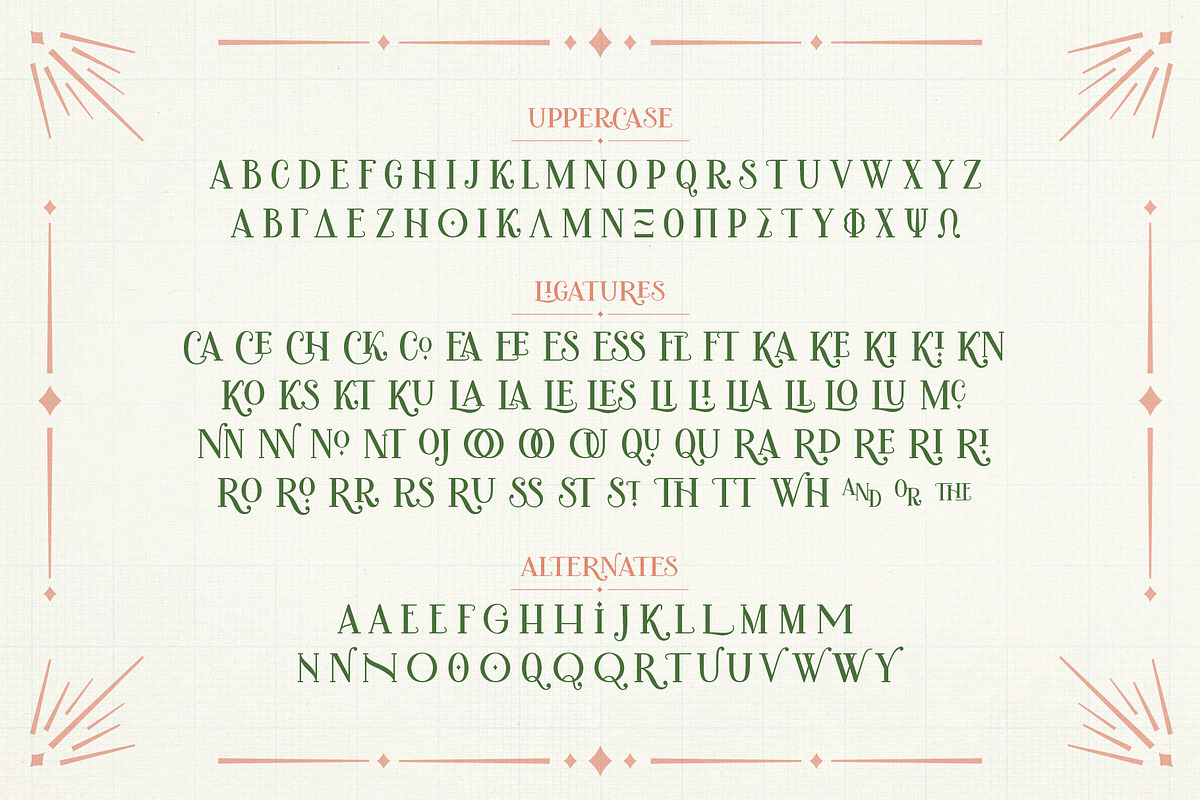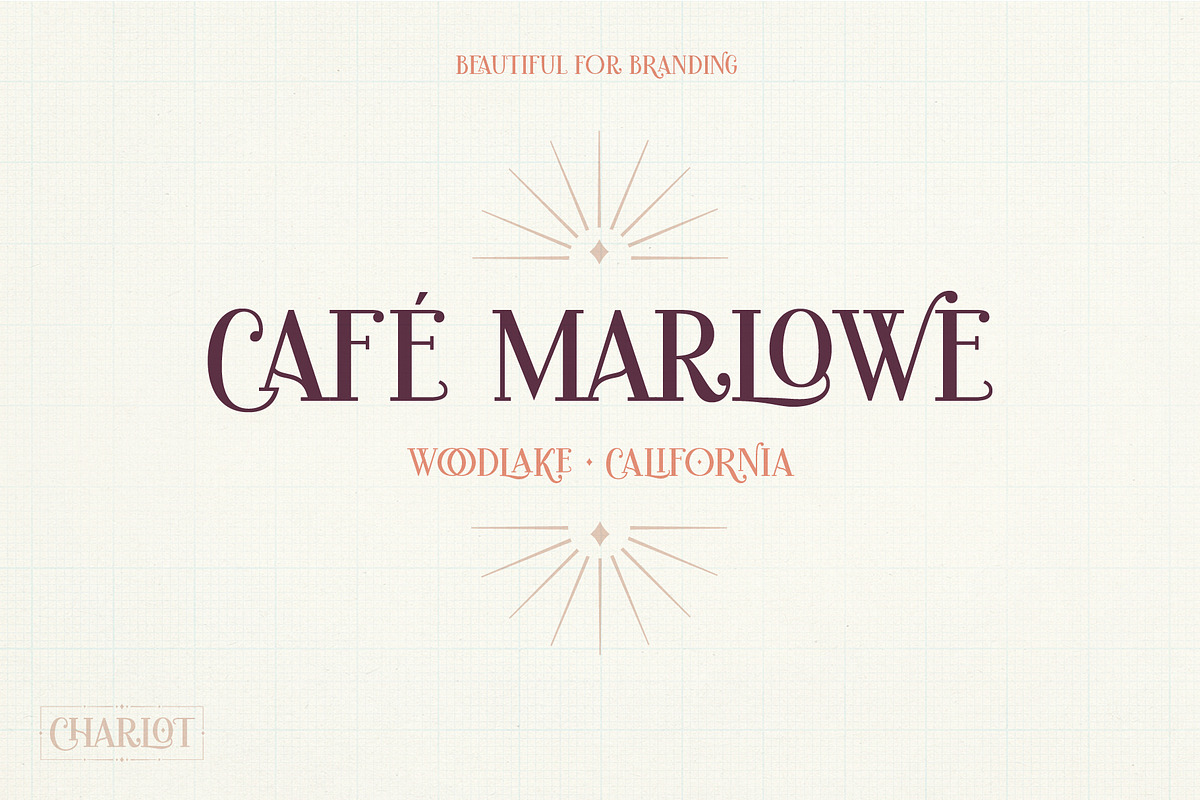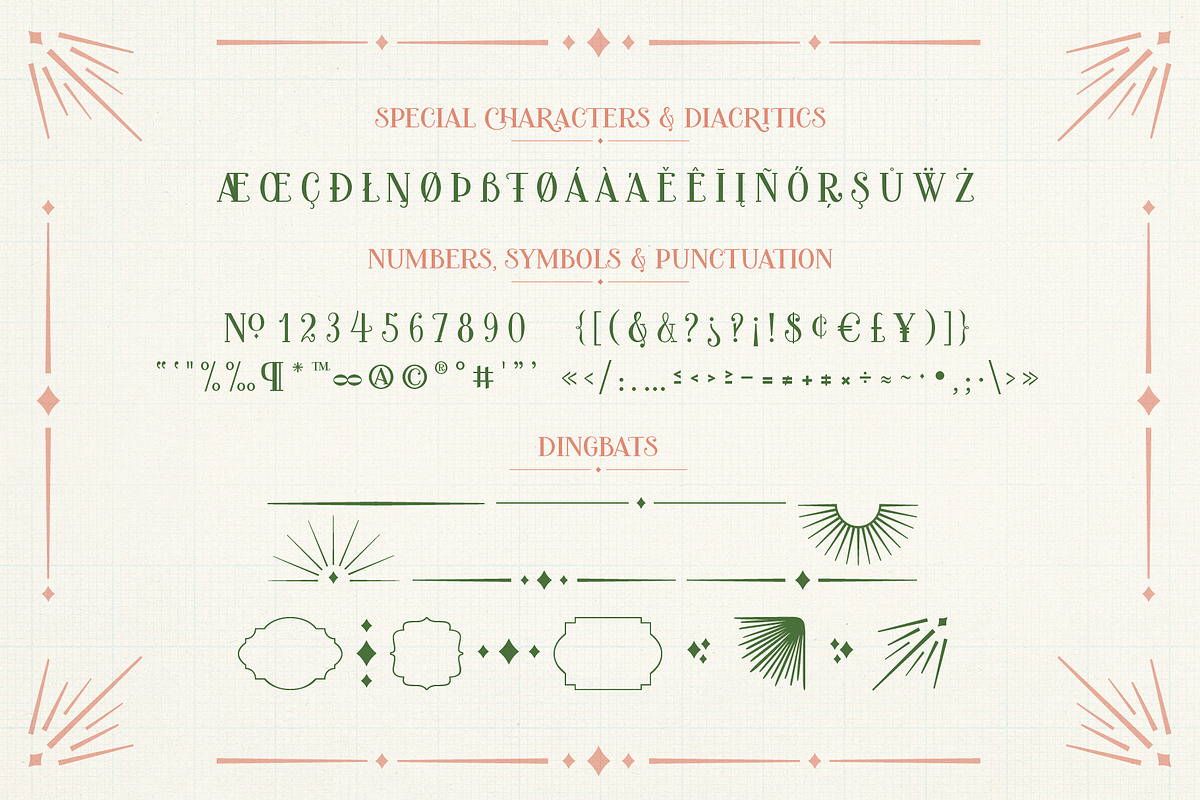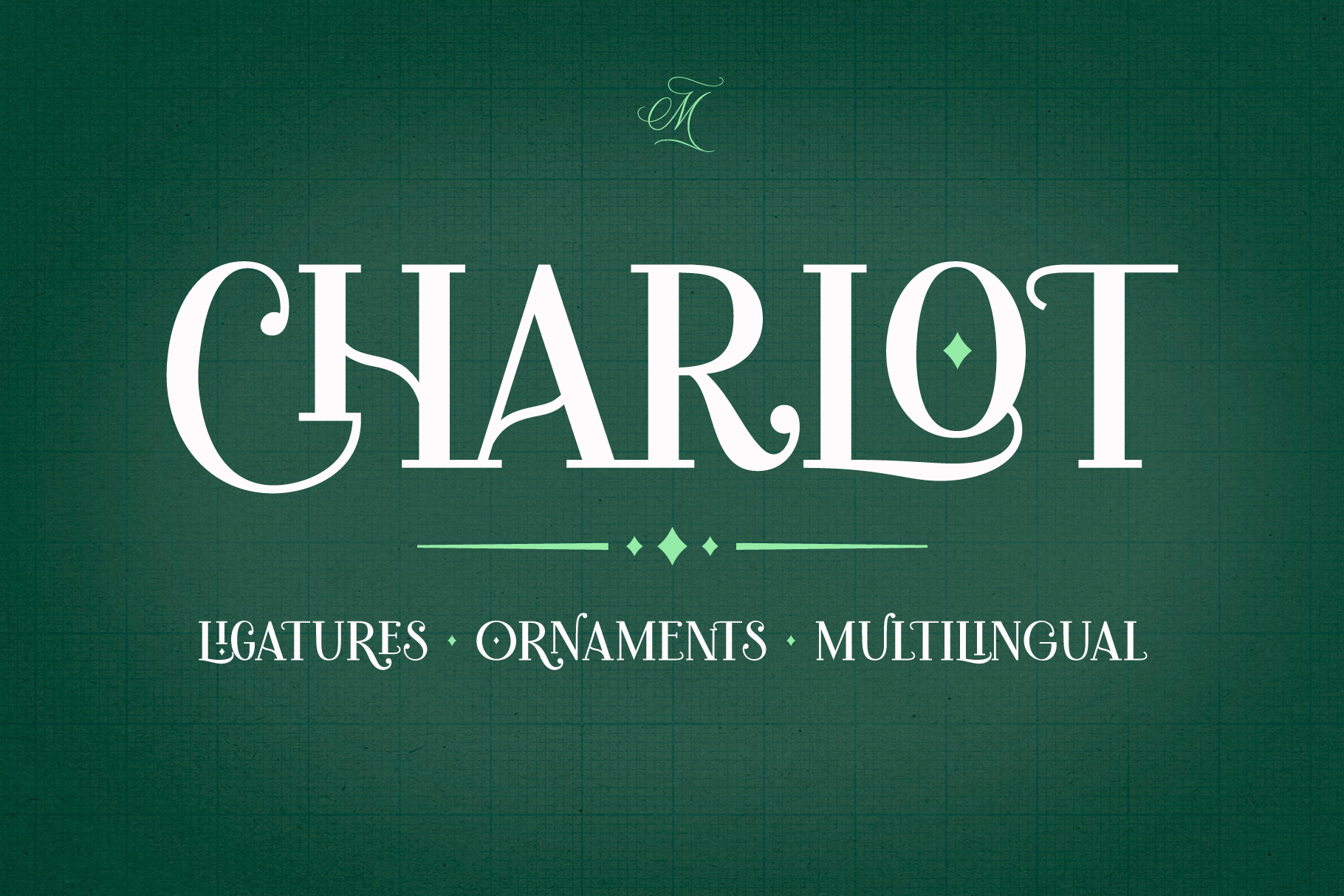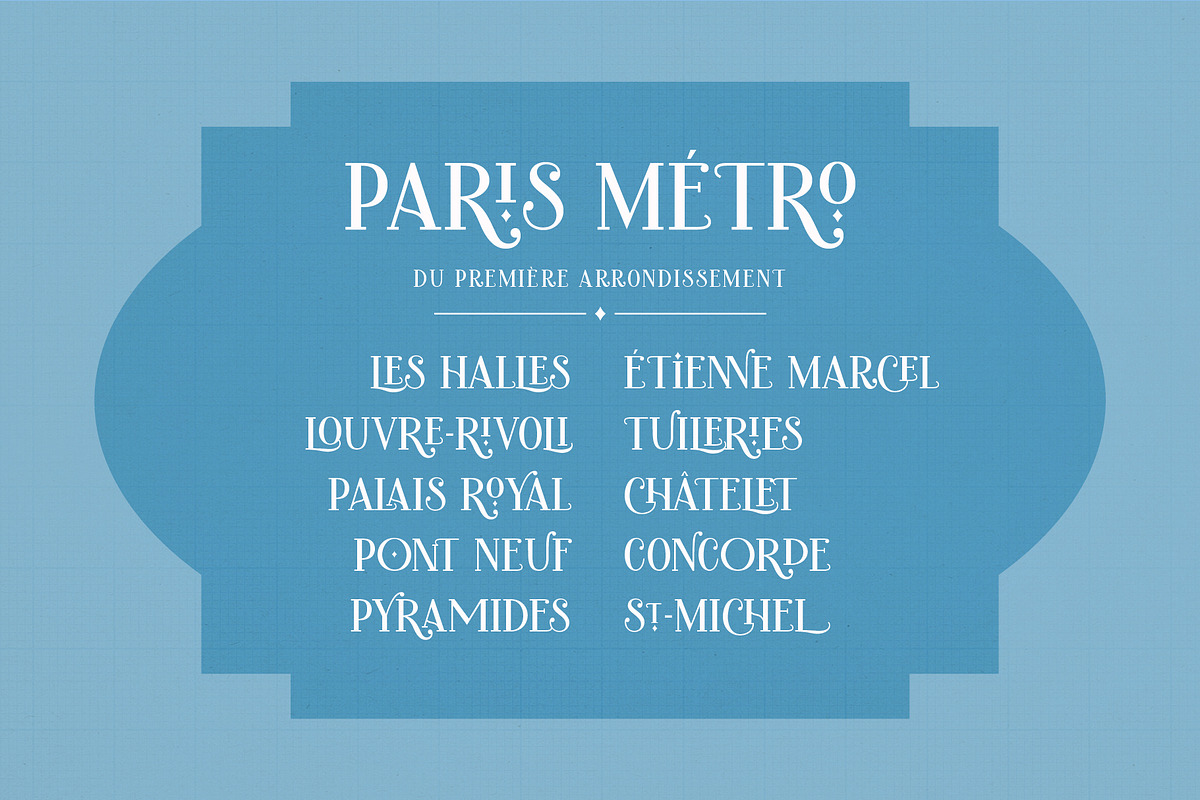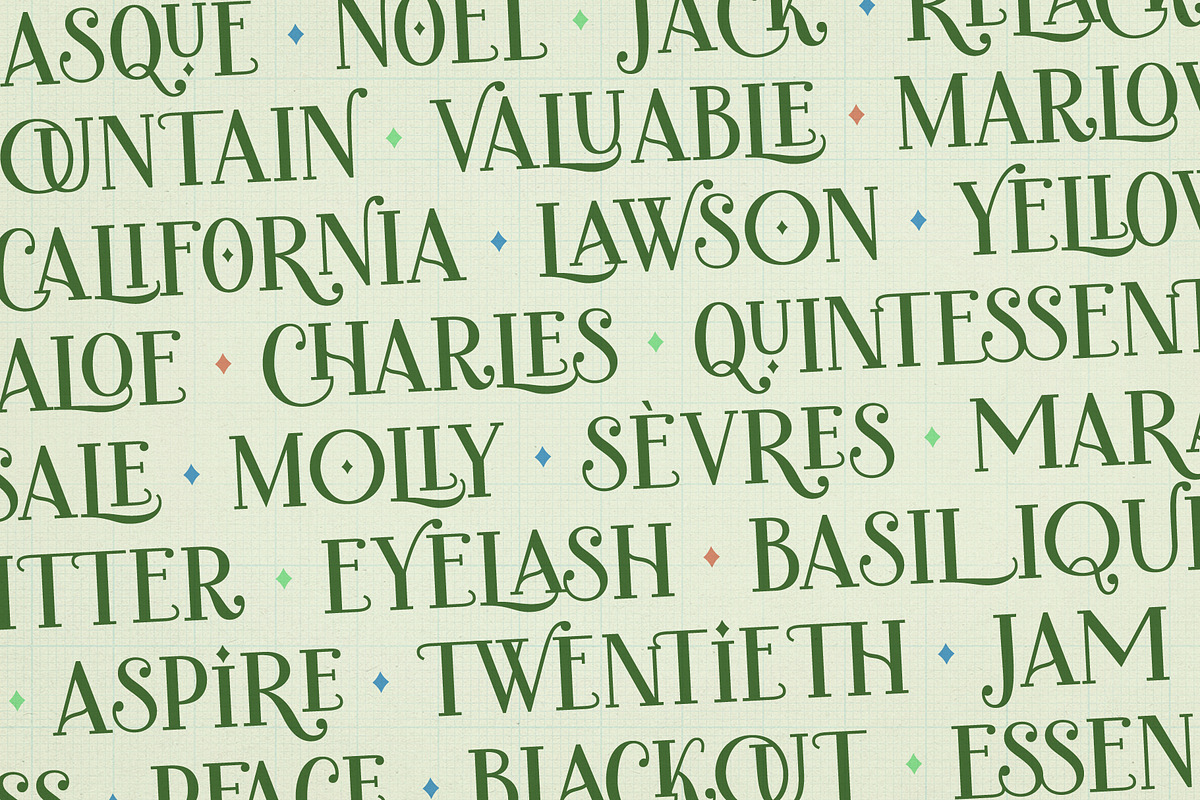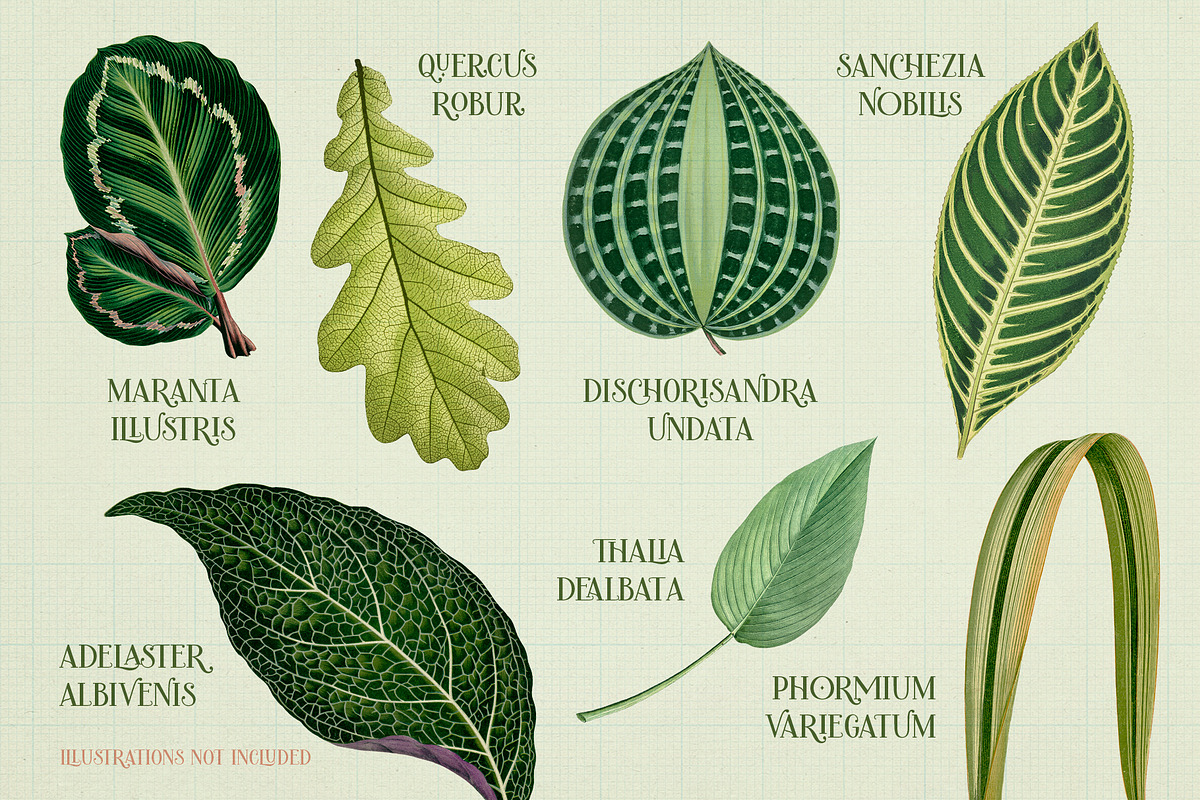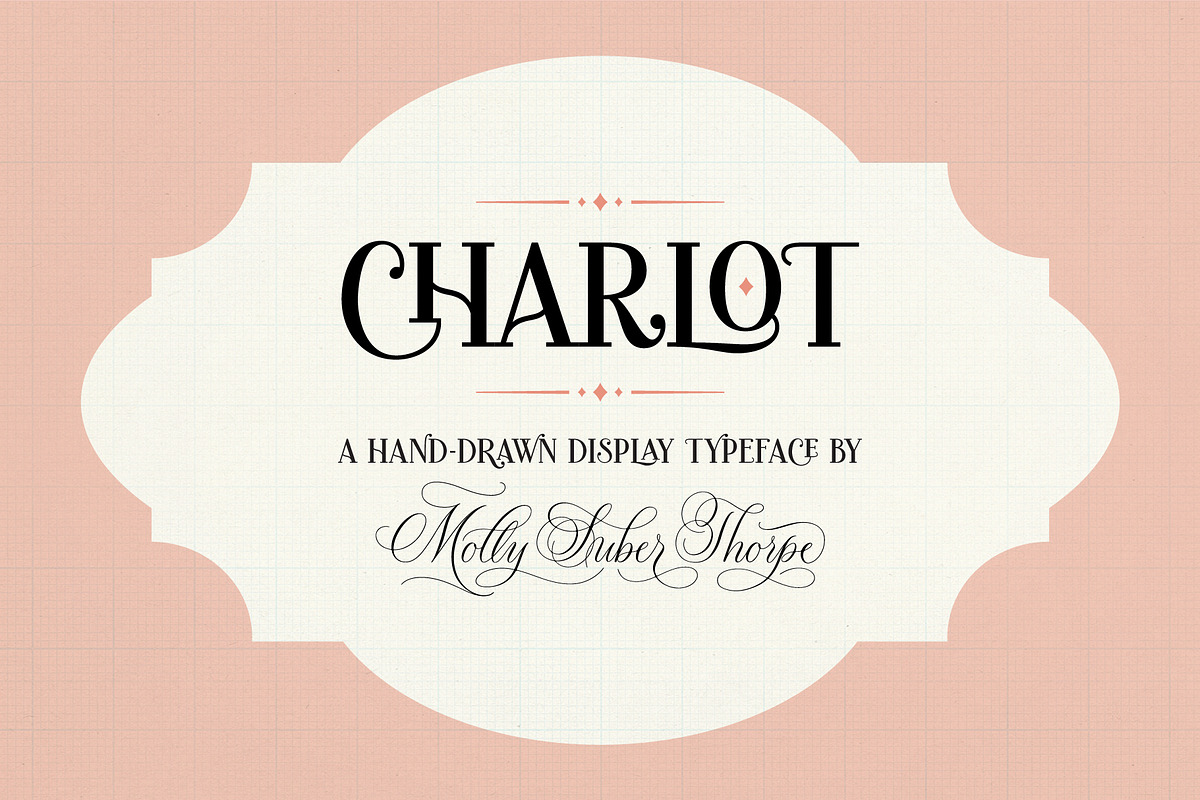
Charlot Decorative Font & Ornaments
Charlot is a decorative display font with dozens of beautiful ligatures and ornaments. The vast selection of ligatures and stylistic alternates makes this font extremely customizable. Charlot is perfect for unique branding and title treatments, personal monograms, and vintage-inspired layouts.
Charlot has 400 glyphs in Latin and Greek consisting of:
- the complete Latin alphabet (with all accent marks),
- the complete Modern Greek alphabet,
- 60 ligatures,
- 33 stylistic alternates,
- 15 decorative ornaments, borders, and frames,
- numerals and math symbols,
- extensive punctuation and diacritical markings.
The OpenType ligatures are the fun part.